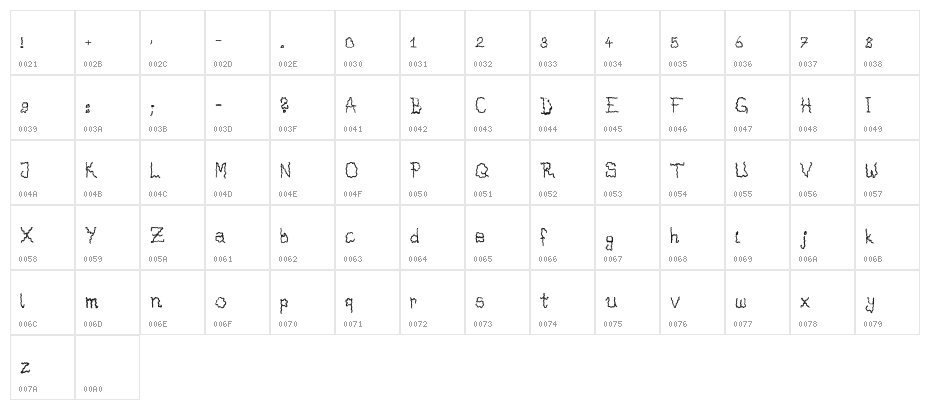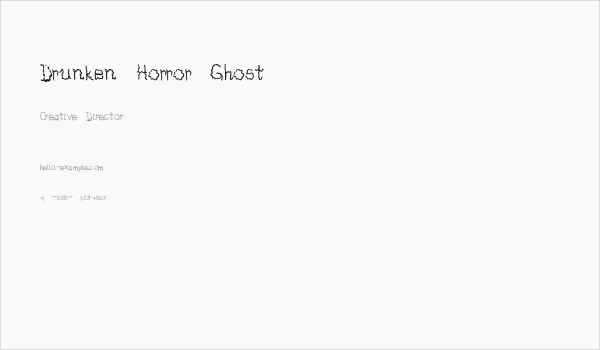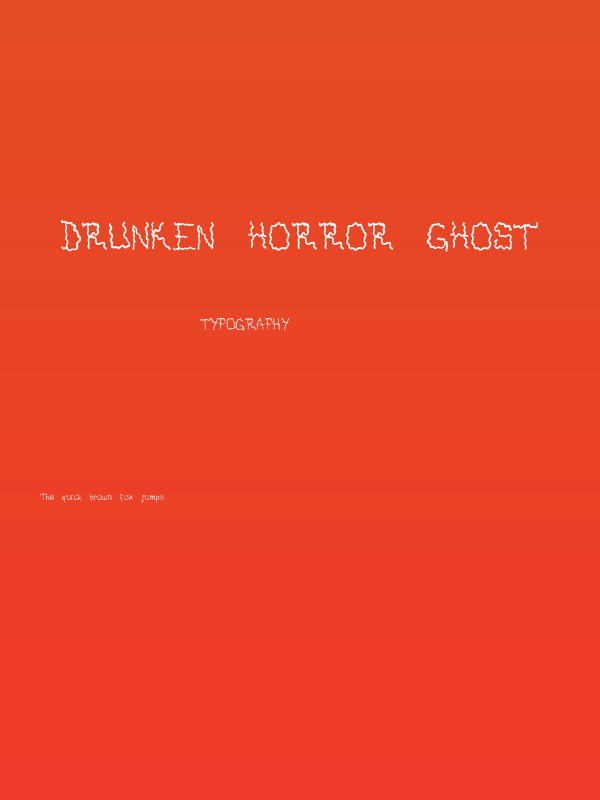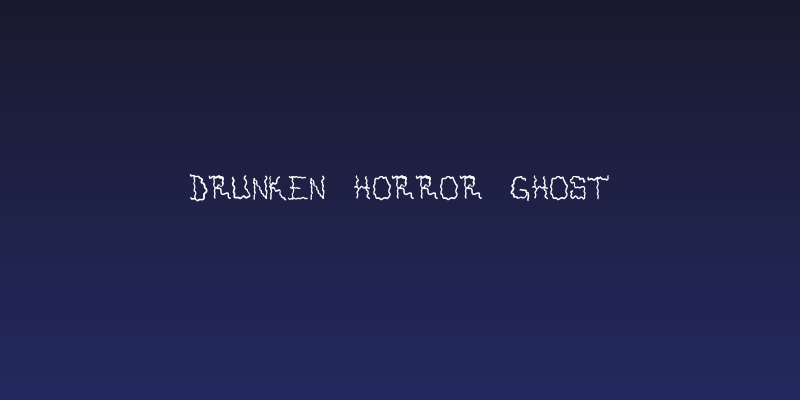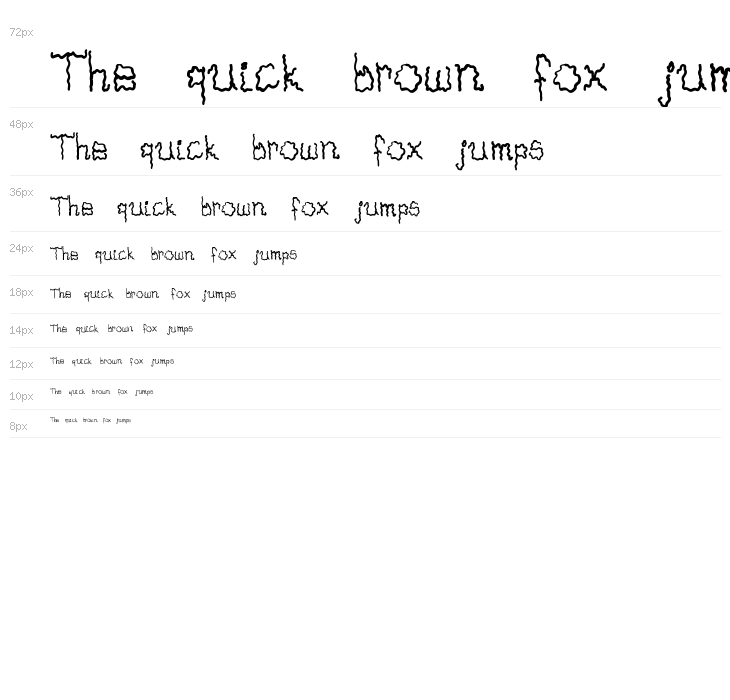
Drunken Horror Ghost Font
Drunken Horror Ghost Description
This font exudes a spooky, eerie vibe with its jagged and irregular outlines, reminiscent of ghostly apparitions or horror-themed aesthetics. The characters appear as if they are trembling or distorted, adding to the unsettling effect. The uppercase and lowercase letters maintain a consistent style, with each character featuring uneven edges that create a sense of movement and instability. Numbers and special characters follow the same design principles, ensuring a cohesive look throughout. This font is perfect for Halloween-themed projects or any design that requires a touch of the macabre.
Proposed ProjectsHalloween invitations, horror movie posters, haunted house flyers, spooky event branding.